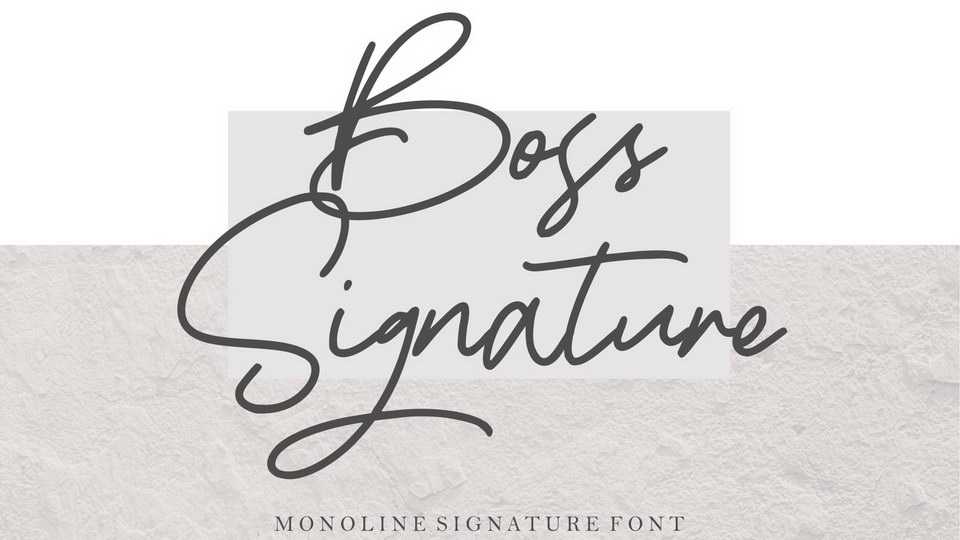
Download Boss Signature font, a stylish signature script with a natural & modern handwritten taste. Boss Signature is perfect for logo, invitation, stationery, wedding designs, social media posts, quote, advertisements, label, photography, watermark, special events or anything.